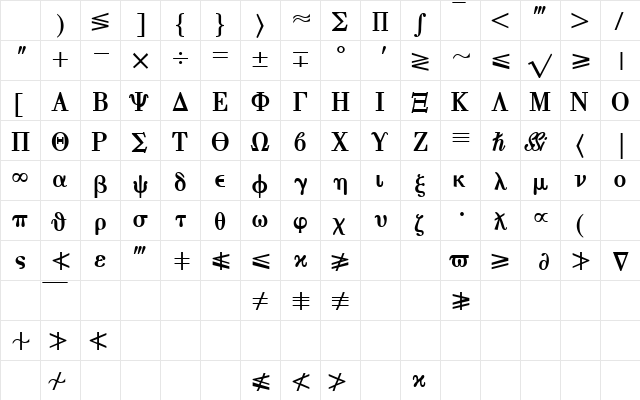
Complete EisagoGreekSSK Bold glyph index. Displaying only characters natively supported by EisagoGreekSSK Bold font.
EisagoGreekSSK is a composed and adaptable typeface that performs quietly and consistently across a wide range of design contexts. Its bold stroke weight gives it real presence on the page.